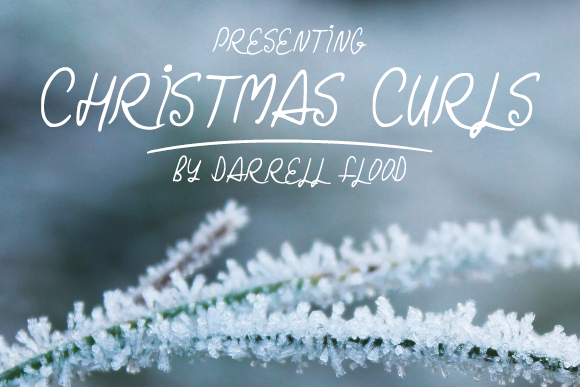
Introducing Christmas Curls Font: Add a Touch of Holiday Cheer to Your Designs
Are you looking for a font that captures the essence of the holiday season? Do you want to add a personal touch to your designs, making them stand out from the crowd? Look no further than Christmas Curls Font, a beautiful, curly, flowing, hand-written script font created by Darrell Flood. In this article, we’ll dive into the features and benefits of Christmas Curls, and explore how you can use it to elevate your holiday designs.
What is Christmas Curls Font?
Christmas Curls is a carefully crafted, hand-written script font that embodies the spirit of the holiday season. Its curly, flowing lines and casual flair make it perfect for a wide range of holiday designs, from Christmas cards and invitations to festive posters and social media graphics. With its handcrafted vibe, Christmas Curls Font adds a touch of warmth and personality to any design, making it an excellent choice for designers and crafters looking to create unique and engaging content.
Key Features of Christmas Curls Font
- Curly, flowing lines: Christmas Curls Font features beautiful, curly lines that give your designs a playful and festive feel.
- Hand-written script: The font’s hand-written script style adds a personal touch to your designs, making them more relatable and engaging.
- Casual flair: Christmas Curls Font has a casual, laid-back vibe that’s perfect for holiday designs that need to feel friendly and approachable.
- Handcrafted vibe: The font’s handcrafted nature gives your designs a unique, artisanal feel that’s sure to stand out.
Why Choose Christmas Curls Font?
So, why should you choose Christmas Curls Font for your holiday designs? Here are just a few reasons:
- Versatility: Christmas Curls Font is suitable for a wide range of holiday designs, from formal to informal, and can be used for both digital and print projects.
- Ease of use: The font is easy to read and works well in a variety of sizes, making it perfect for use in titles, headings, and body text.
- Unique style: Christmas Curls Font has a distinctive style that’s sure to make your designs stand out from the crowd.
- High-quality: The font is created by Darrell Flood, a skilled font designer, ensuring that it’s of the highest quality and free from errors.
How to Use Christmas Curls Font
- Pair it with other fonts: Christmas Curls Font pairs well with a variety of other fonts, so feel free to experiment with different combinations to find the perfect look for your design.
- Use it for headings and titles: The font’s curly, flowing lines make it perfect for use in headings and titles, where it can add a touch of festive flair to your design.
- Add it to your digital designs: Christmas Curls Font works well in digital designs, such as social media graphics, email newsletters, and website headers.
- Use it for print projects: The font is also suitable for use in print projects, such as Christmas cards, invitations, and posters.
If you’re looking for a font that captures the essence of the holiday season, look no further than Christmas Curls Font. With its curly, flowing lines, casual flair, and handcrafted vibe, this beautiful script font is perfect for a wide range of holiday designs. Download Christmas Curls Font today and add a touch of festive cheer to your designs!